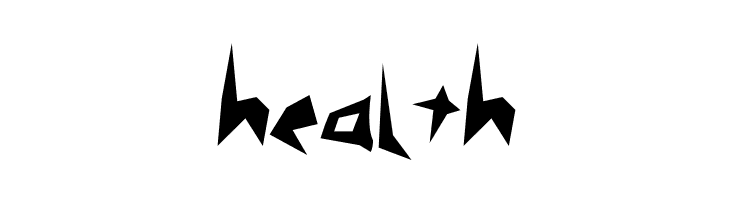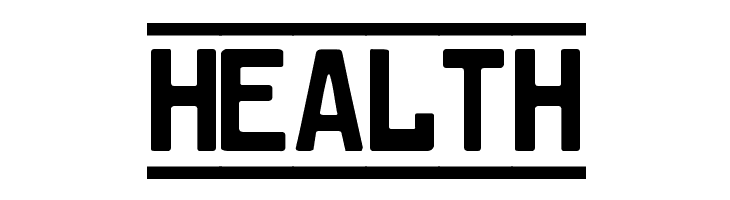
( Fonts by Rodrigo German - RASDESIGN )
A bold, outlined font with geometric structure and modern appeal.
( Fonts by fredlobo.blogspot.com )
A bold, playful font with rounded, thick strokes and a hand-drawn feel.
A structured, high-contrast serif font with a classic Roman architectural influence.
An ornate and decorative font with intricate detailing and vintage flair.
( Fonts by Anke Arnold - www.anke-art.de )
A bold, geometric font with a modern and structured design.